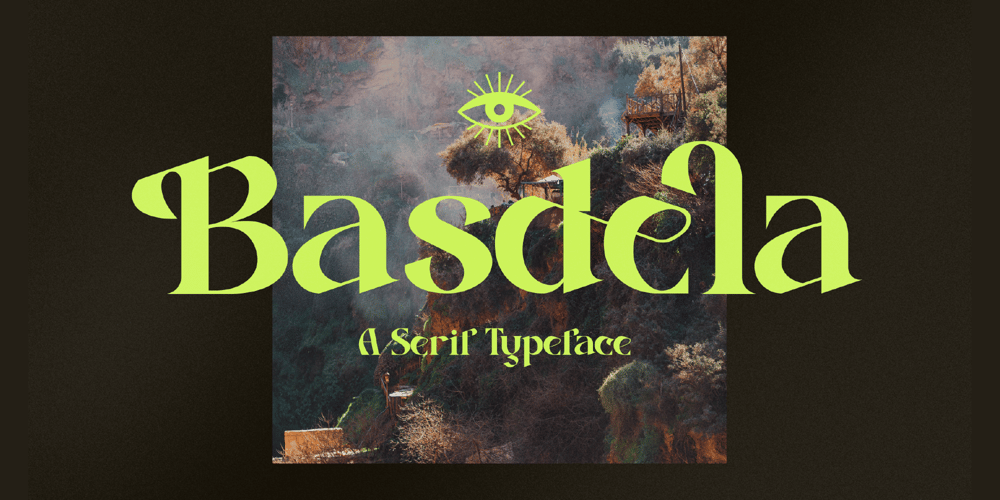
Basdela Font Family was designed by Heru Utama Putra and published by Letterena Studios. Basdela contains 2 styles and family package options. Basdela is a bold and stylish serif font. It is PUA encoded which means you can access all of the glyphs and swashes with ease!Add it confidently to your projects, and you will love the results.